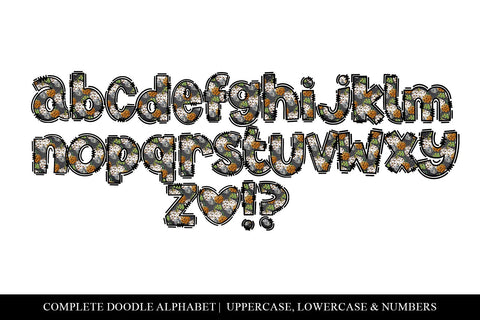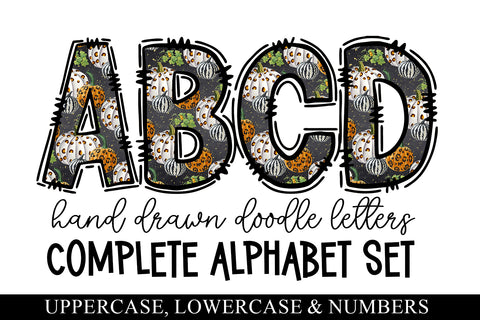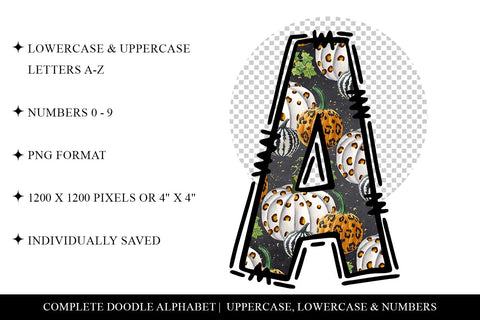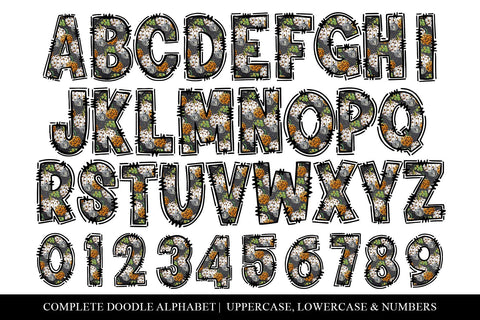
Pumpkin Doodle Letters, Fall Sublimation Alphabet
Immerse yourself in the cozy and vibrant spirit of autumn with our Fall Doodle Letters PNG collection. This captivating sublimation alpha set showcases a delightful assortment of hand-drawn doodle letters and numbers, individually saved as PNG files for your convenience. Embrace the charm of the season with pumpkin-inspired designs that evoke the warmth and beauty of autumn. Let your creativity flourish as you effortlessly incorporate these whimsical elements into your crafts, invitations, and digital artwork. With each letter and number meticulously crafted, you can add a touch of autumnal magic to your projects and infuse them with the enchanting spirit of the season. Fall in love with our exquisite Fall Doodle Letters PNG collection and let your designs bloom with autumnal splendor.